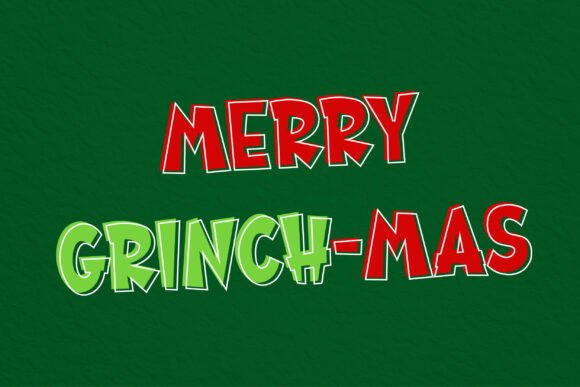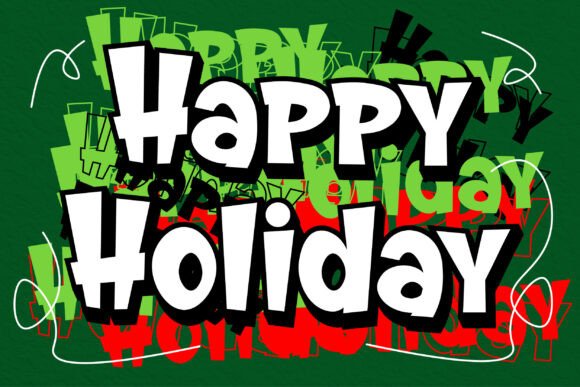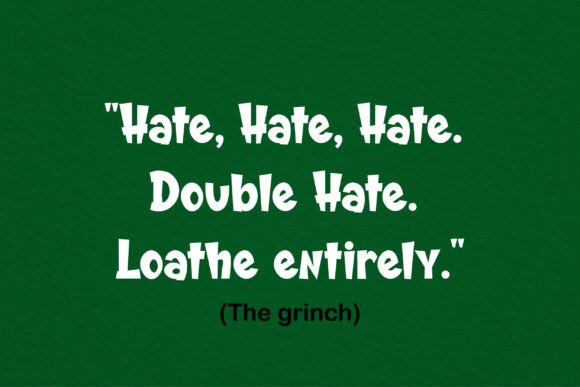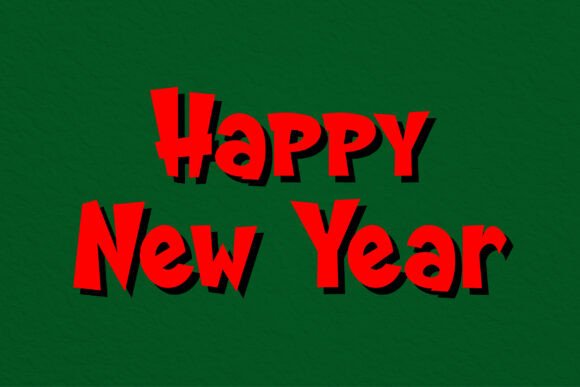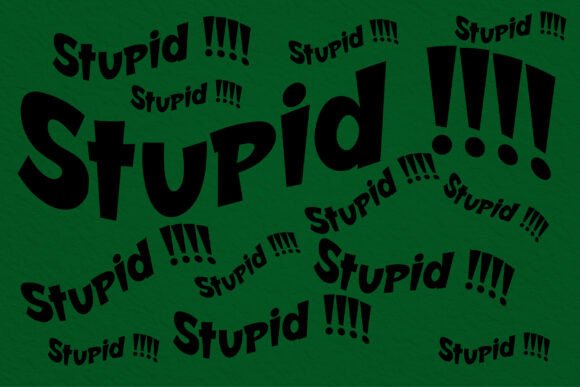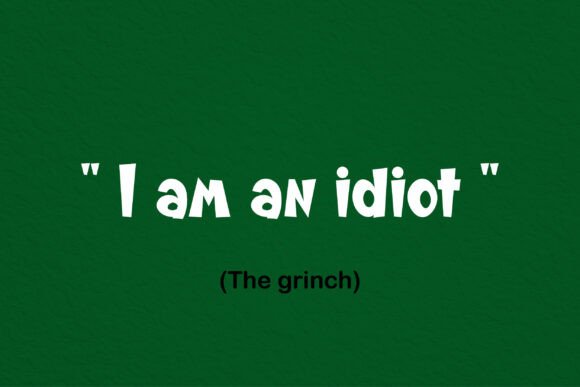
Introduction to Grinch Era Font
Immerse your design projects in the playful merriment of the holidays with Grinch Era, a dynamic display font radiating a distinctive cartoon-style aura.
I Ideal for jazzing up blog content, branding elements, and logos, Grinch Era infuses a element of enchantment into your advertisements Use it as a tasteful sprinkle of festive cheer in your invitations and greeting cards, or as a charming touch to decorations and photo albums.
Key Features of Grinch Era Font
Why Choose Grinch Era Font?
Grinch Era Font offers exceptional quality and versatility, making it a valuable addition to your design toolkit. Whether you’re creating for personal projects or commercial use, Grinch Era Font delivers professional results.